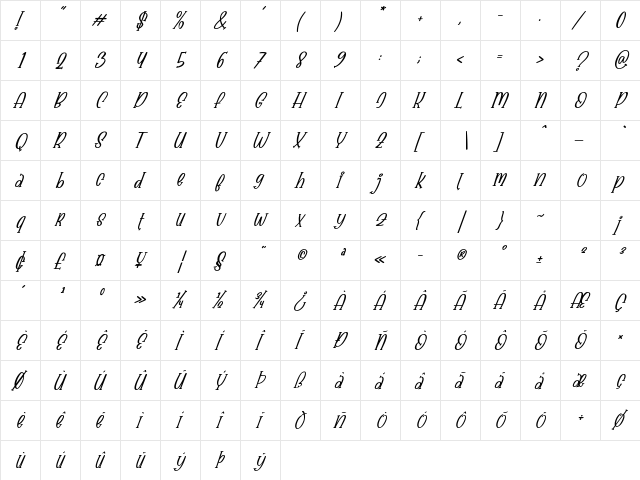
Babyface Italic Regular
Design Context for Babyface Italic Typeface
Babyface Italic is a composed and adaptable typeface that performs quietly and consistently across a wide range of design contexts. The dynamic lean of this cut emphasises speed and emphasis in any layout.
Pro Tip: Try Babyface Italic for annotation and caption copy alongside an upright companion — the contrast in angle creates a dynamic but ordered typographic system.